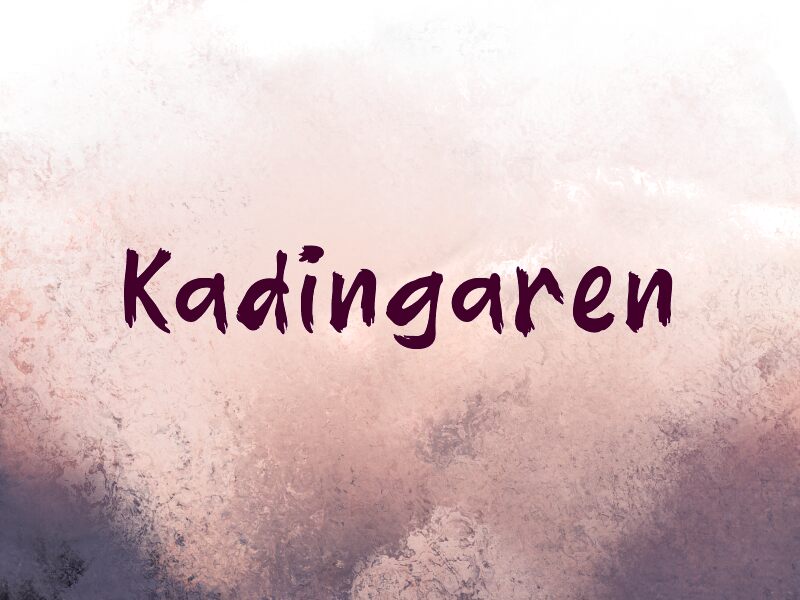
Kadingaren
Kadingaren font by wep is a free brush font that feels like it was painted in one confident, inky sweep. Thick, slightly ragged strokes and casual curves give it a raw, hand-lettered energy, while the letters stay compact and readable. It has the weight and texture of real brush on paper, so your text looks expressive without turning messy or chaotic.
Using Kadingaren, your headlines instantly pick up a bold, human touch that shines on posters, social media graphics, album covers, streetwear branding, packaging, and event flyers. This free font works beautifully when set large and given room to breathe; pair it with a clean sans serif for body text to keep the layout balanced and easy to scan.